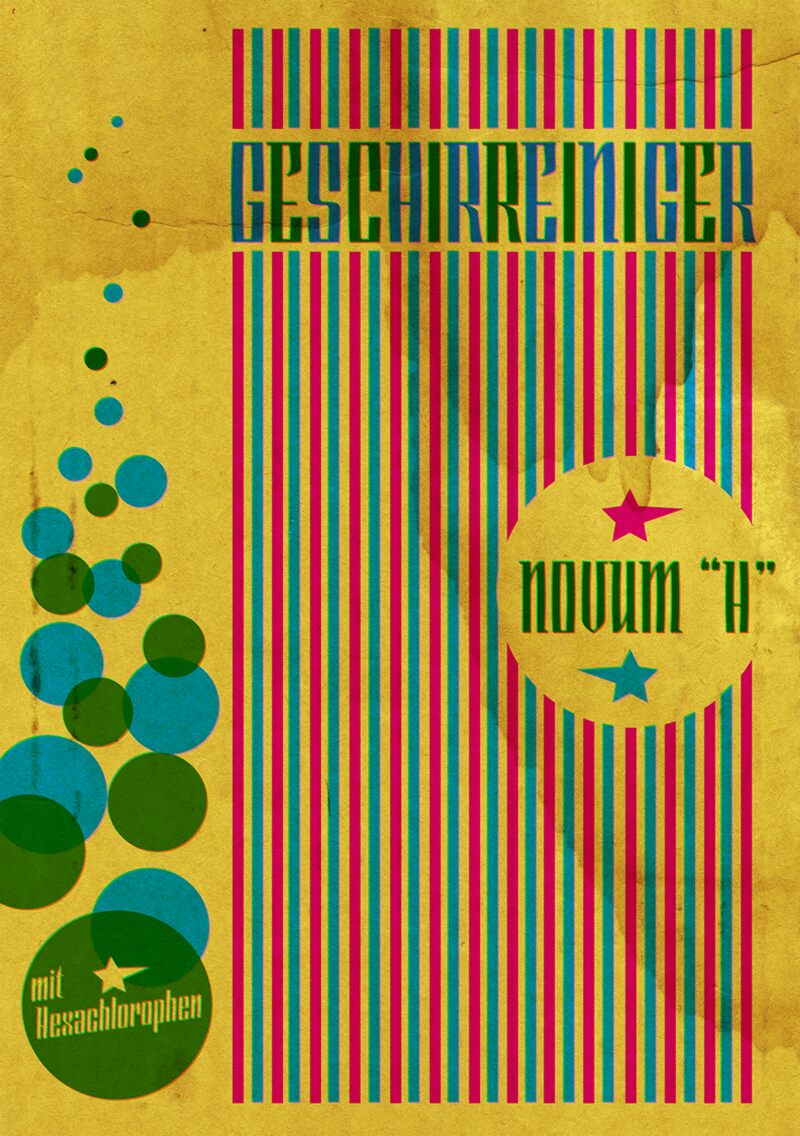
Kroegbainder Italic
Back in the early 70s I had these cheap radios and tape recorders , some of them made in the old DDR. They had equally cheap logos on them -that I loved-, and I tried to make a font that looks like that for the past two days. This is what I came up with, Kroegbainder, a modern display typeface from when the East Bloc was still a thing.